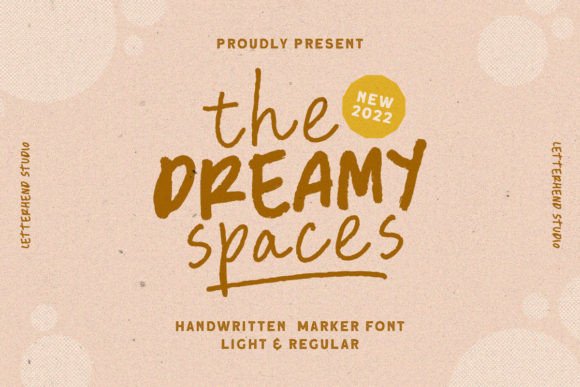
Step into the world of Dreamy Spaces Font, a display font, designed by letterhend, that'll ignite your creativity and transform your designs into captivating expressions. With its elegant brush strokes and a touch of delightful whimsicality, this font is the perfect choice for creating designs that are as captivating as they are impactful.
With Dreamy Spaces, you'll embark on a journey of artistic possibilities. Whether you're crafting stunning quotes, captivating social media posts, or designing unique logos and branding materials, this font will effortlessly elevate your work to new heights. Its graceful curves and flowing lines add a touch of sophistication to any project, leaving a lasting impression on all who encounter it.
Unleash the power of expression with Dreamy Spaces. This font is brimming with character and personality, allowing you to convey your messages with a touch of elegance and playfulness. It's perfect for designers who want to create an emotional connection with their audience and leave a lasting impact.
Discover the beauty of Dreamy Spaces Font today, and see how it can transform your creative visions into captivating realities. Let the font's magical brush strokes weave their spell on your designs, leaving your audience enchanted and inspired. Dreamy Spaces is the perfect font for designers who dare to dream and create designs that are as unique and memorable as the stories they tell.